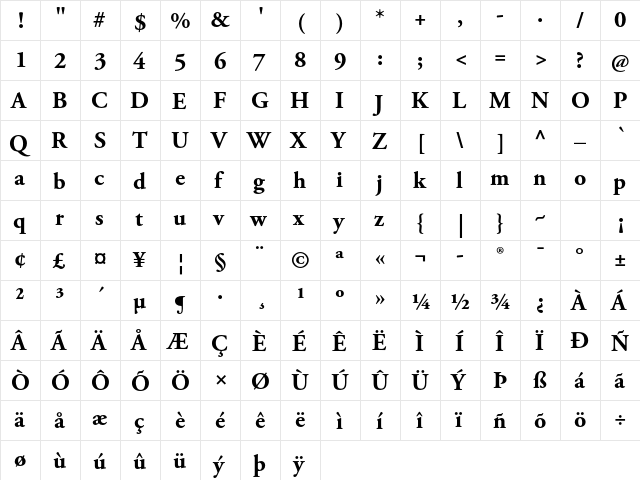
Adobe Garamond Pro Bold Font Preview
Adobe Garamond Pro Bold
Adobe Garamond Pro Bold Font Details
| Designer | Robert Slimbach |
Design Context for Adobe Garamond Pro Typeface
Adobe Garamond Pro is a composed and adaptable typeface that performs quietly and consistently across a wide range of design contexts. Its bold stroke weight gives it real presence on the page.